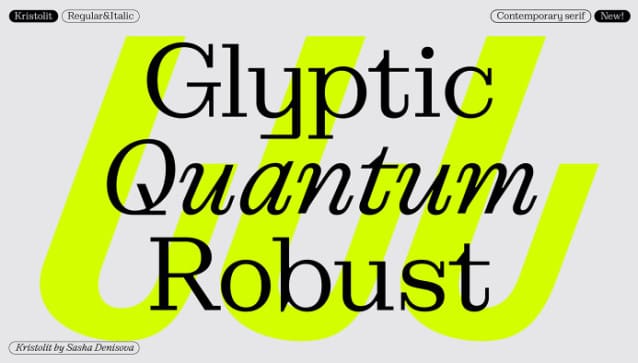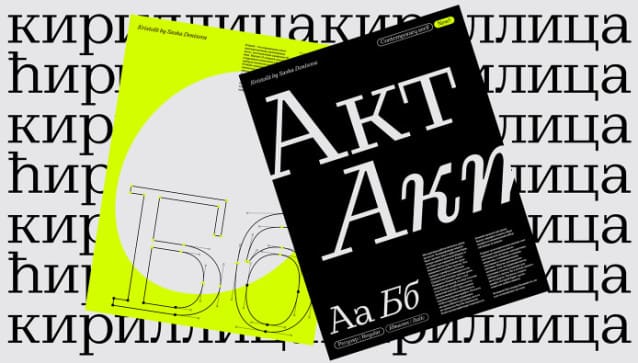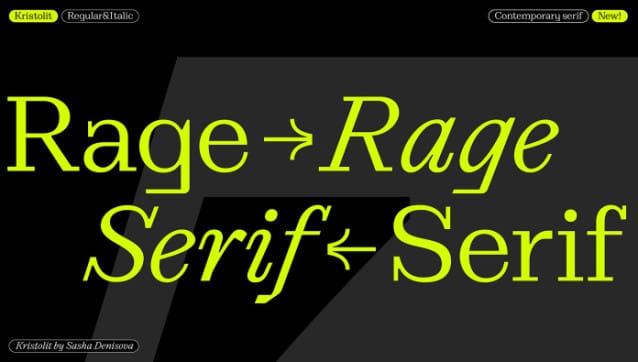
Kristolit Font
Kristolit Font is an elegant and beautiful serif font. This font is a Scotch Roman-inspired typeface with a technological twist. Version 1.0 features regular and italic styles with basic Latin and Cyrillic sets. It’s both elegant and robust: its ample curves contrast with the brutality of its lines, the verticality of its axis and stroke contrast. It is optimized type family for editorial use, branding projects and identities striking a balance between aesthetic experimentation, functionality, and legibility. The italic version adds a calligraphic touch while maintaining its tech-savvy and robust character.